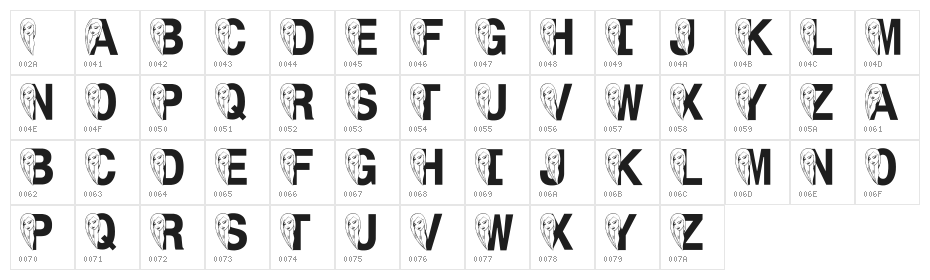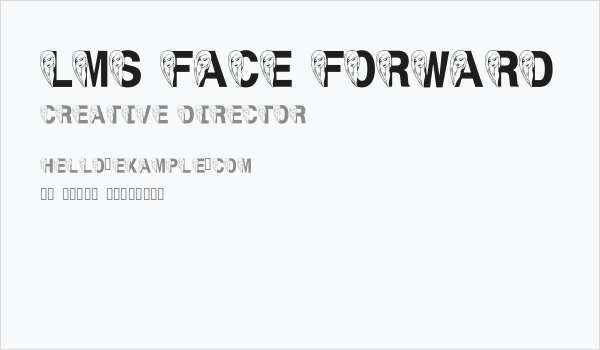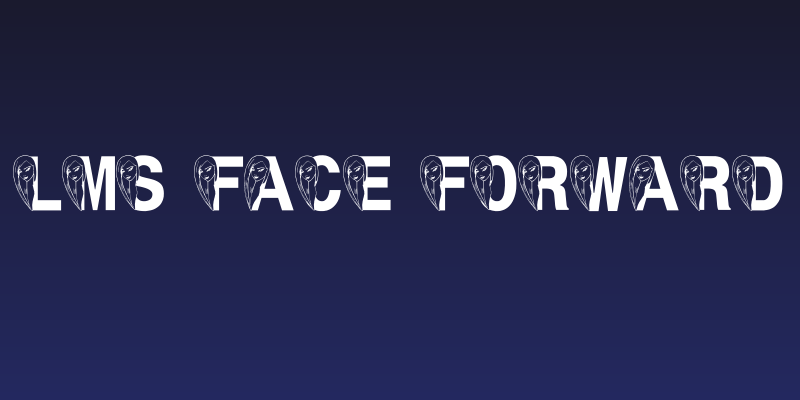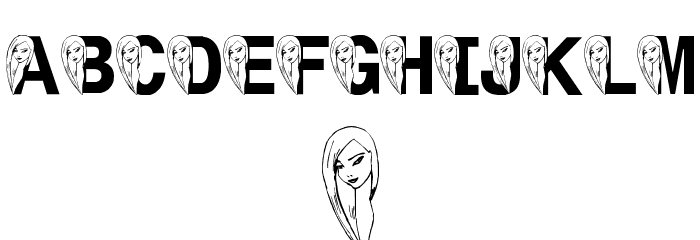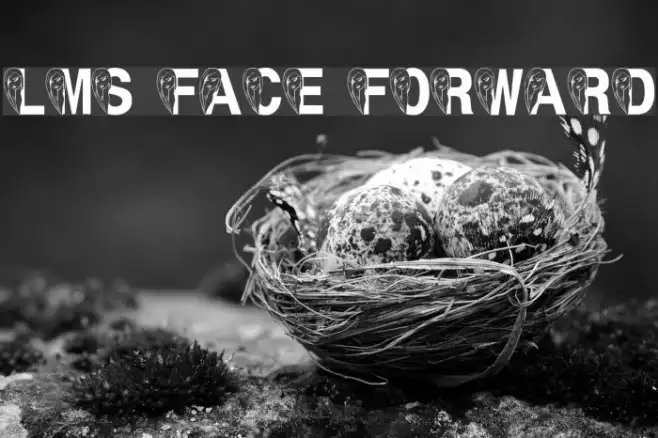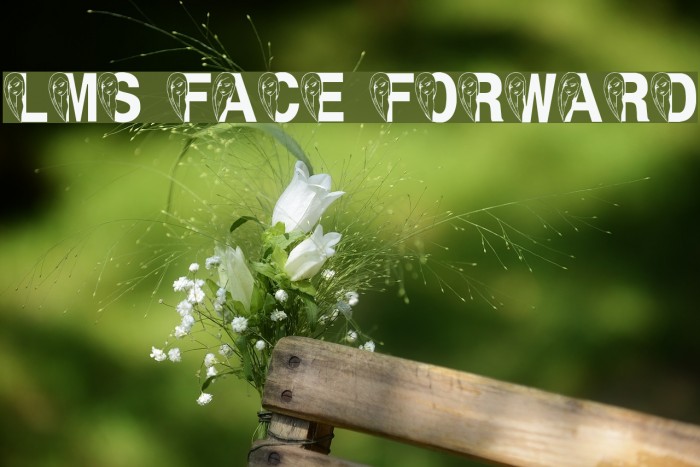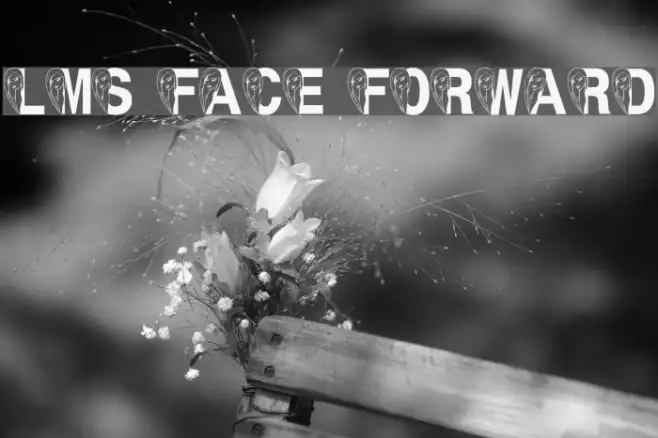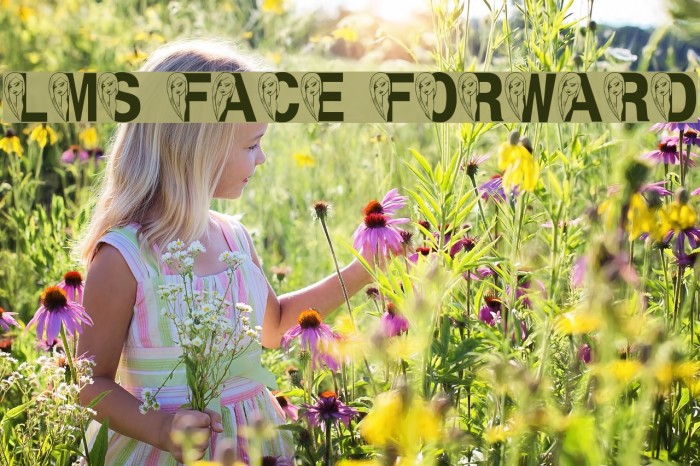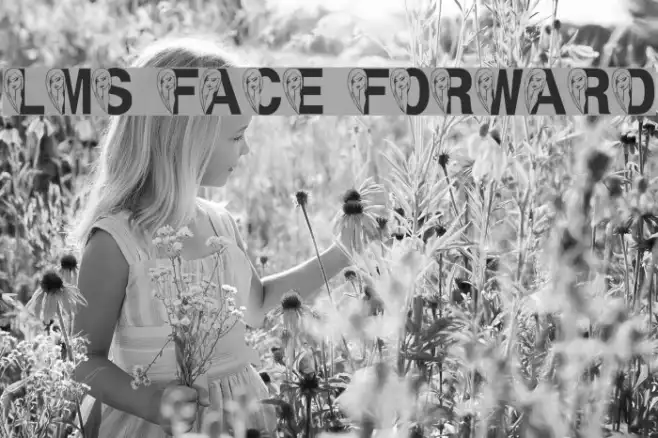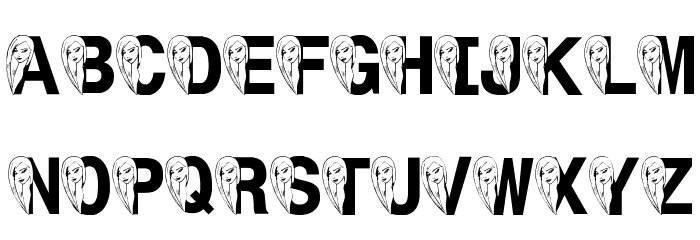
LMS Face Forward Font
LMS Face Forward Description
This font features a unique and artistic design where each letter is integrated with a stylized face illustration. The characters are bold and have a modern, decorative flair, making them stand out with a distinct personality. The use of faces within the letters adds a playful and creative touch, making it ideal for projects that require a strong visual impact. The font is primarily uppercase, with consistent character width and a bold weight, ensuring readability while maintaining its decorative style.
| Use Case | Headlines, Logos, Artistic Displays |
| Proposed Projects | Ideal for creative projects like posters, album covers, fashion branding, and artistic displays. |